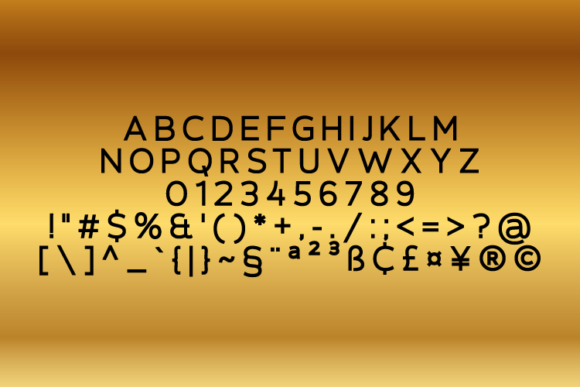
Introduction to Nuerthon Extra Bold Font
Nuerthon is a modern and sophisticated sans serif font font with an undeniably clean feel.
With its neat and beautiful arrangement of letters, this typeface will look outstanding in both formal and non-formal designs .